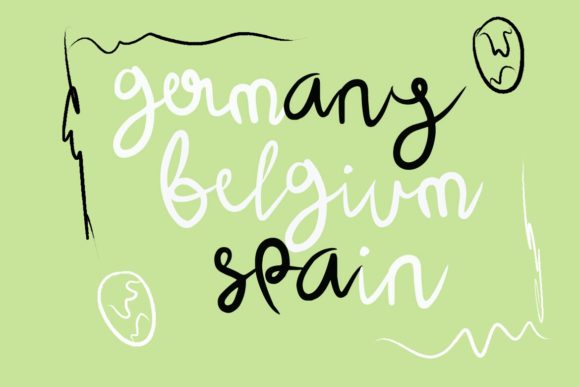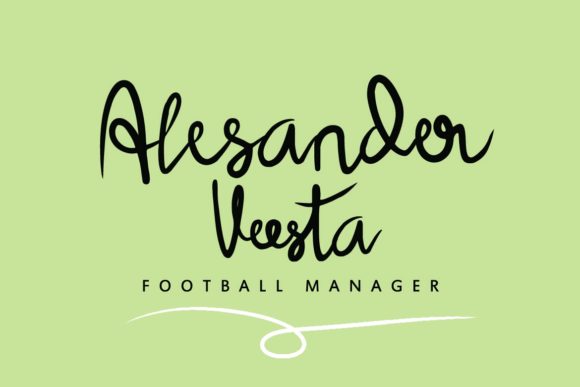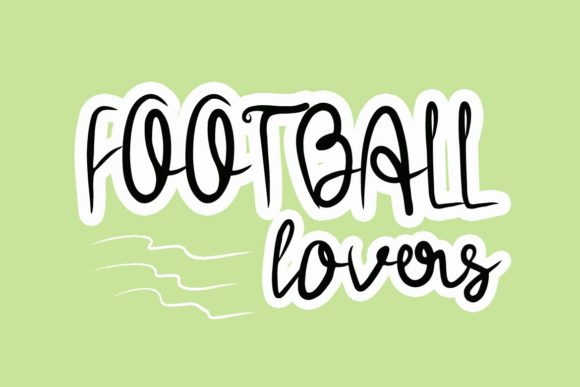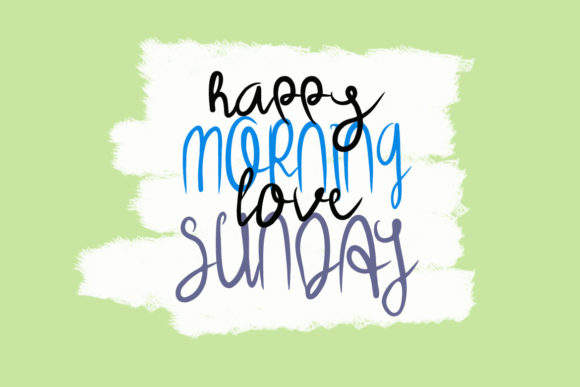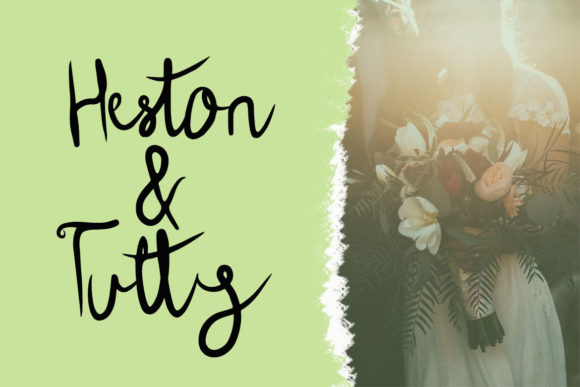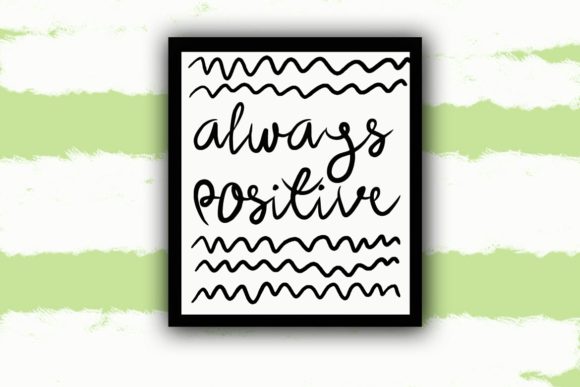
Discover the Bestgoals Font: Elevate Your Designs with a Unique Handwritten Style
Are you tired of using the same old fonts in your designs? Look no further! The Bestgoals font is here to revolutionize your creative projects with its fresh, handwritten style. This versatile font is perfect for designers and crafters seeking to add a personal touch to their work. In this article, we’ll dive into the features and benefits of the Bestgoals font, and explore how it can take your designs to the next level.
A Unique and Interesting Handwritten Font
The Bestgoals font is a one-of-a-kind, handwritten font that boasts an incredibly stylish look. Its unique character set makes it an excellent choice for a wide range of design projects, from branding and advertising to packaging and digital media. Whether you’re creating a logo, brochure, or social media graphic, the Bestgoals font is sure to make your design stand out.
Incredibly Versatile
One of the best things about the Bestgoals font is its versatility. It can be used in a variety of design contexts, from formal to informal, and can adapt to different styles and themes. Whether you’re going for a modern, trendy look or a more traditional, elegant feel, the Bestgoals font can help you achieve your design goals.
The Bestgoals font is PUA (Private Use Area) encoded, which means you can access all of the glyphs and swashes with ease. This feature makes it easy to customize your designs and add a personal touch. With the Bestgoals font, you can create stunning designs that showcase your creativity and attention to detail.
Key Features of the Bestgoals Font
- Unique and handwritten style: The Bestgoals font boasts a fresh, handwritten look that’s perfect for designers seeking to add a personal touch to their work.
- Incredibly versatile: This font can be used in a wide range of design contexts, from formal to informal, and can adapt to different styles and themes.
- PUA encoded: The Bestgoals font is PUA encoded, making it easy to access all of the glyphs and swashes.
How to Use the Bestgoals Font in Your Designs
Using the Bestgoals font in your designs is easy. Here are a few tips to get you started:
- Pair it with other fonts: The Bestgoals font pairs well with other fonts, so feel free to experiment with different combinations to create a unique look.
- Use it for headlines and titles: The Bestgoals font is perfect for headlines and titles, where its stylish look can really shine.
- Add a personal touch: Use the Bestgoals font to add a personal touch to your designs, whether you’re creating a logo, brochure, or social media graphic.
The Bestgoals font is a game-changer for designers and crafters seeking to elevate their designs with a unique, handwritten style. Its versatility, PUA encoding, and ease of use make it an excellent choice for a wide range of design projects. Whether you’re a seasoned designer or just starting out, the Bestgoals font is sure to inspire your creativity and help you create stunning designs that stand out from the crowd.